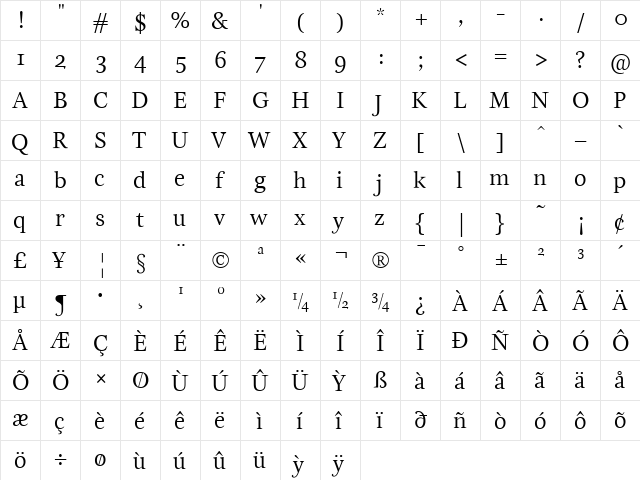
Esta Regular Font Preview
Esta Regular
Esta Regular Font Details
| Foundry | Dino dos Santos _ DSType |
Design Context for Esta Typeface
Esta takes a measured approach to typography — its balanced proportions and neutral character make it a reliable workhorse for both digital and print work.